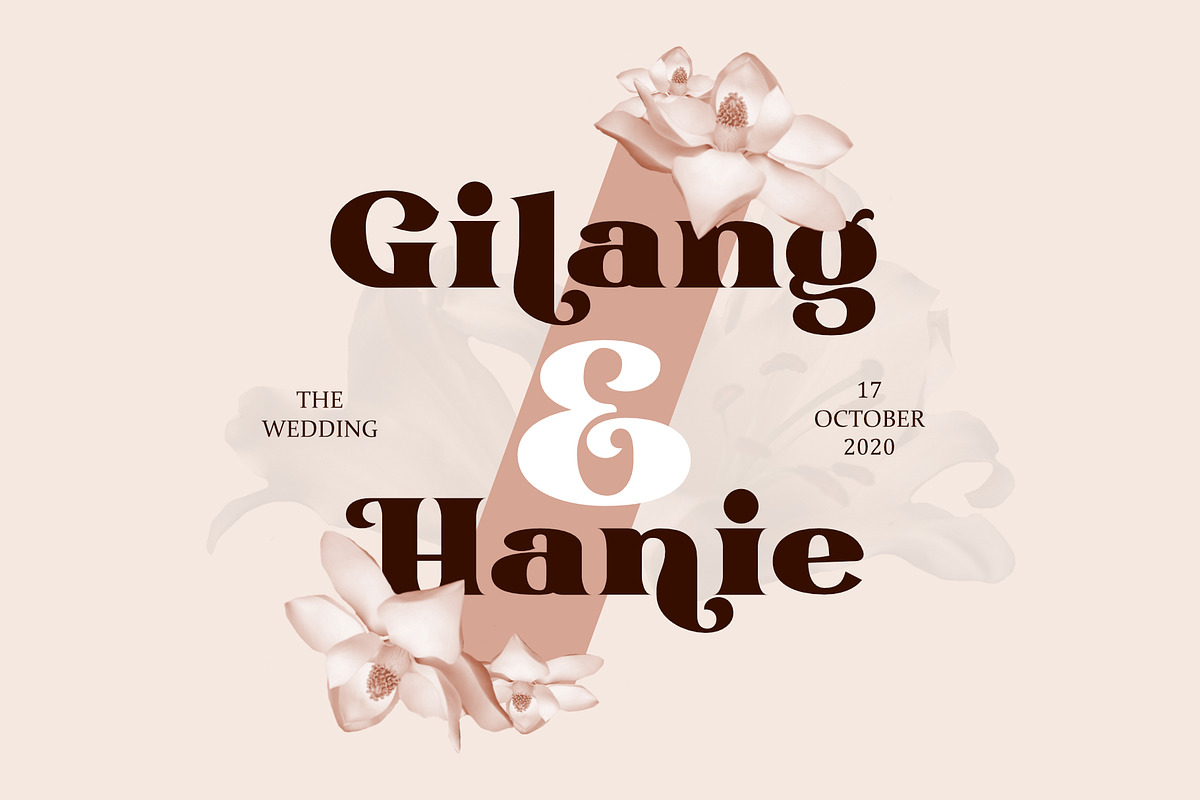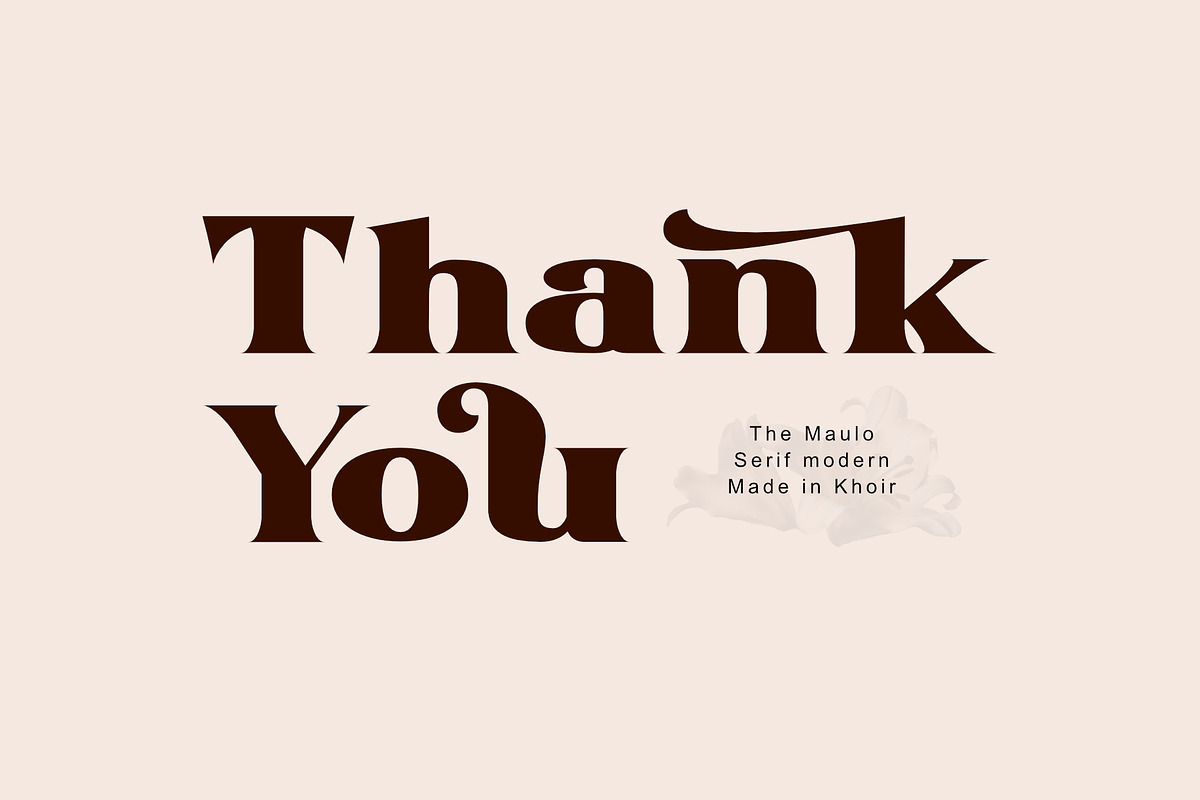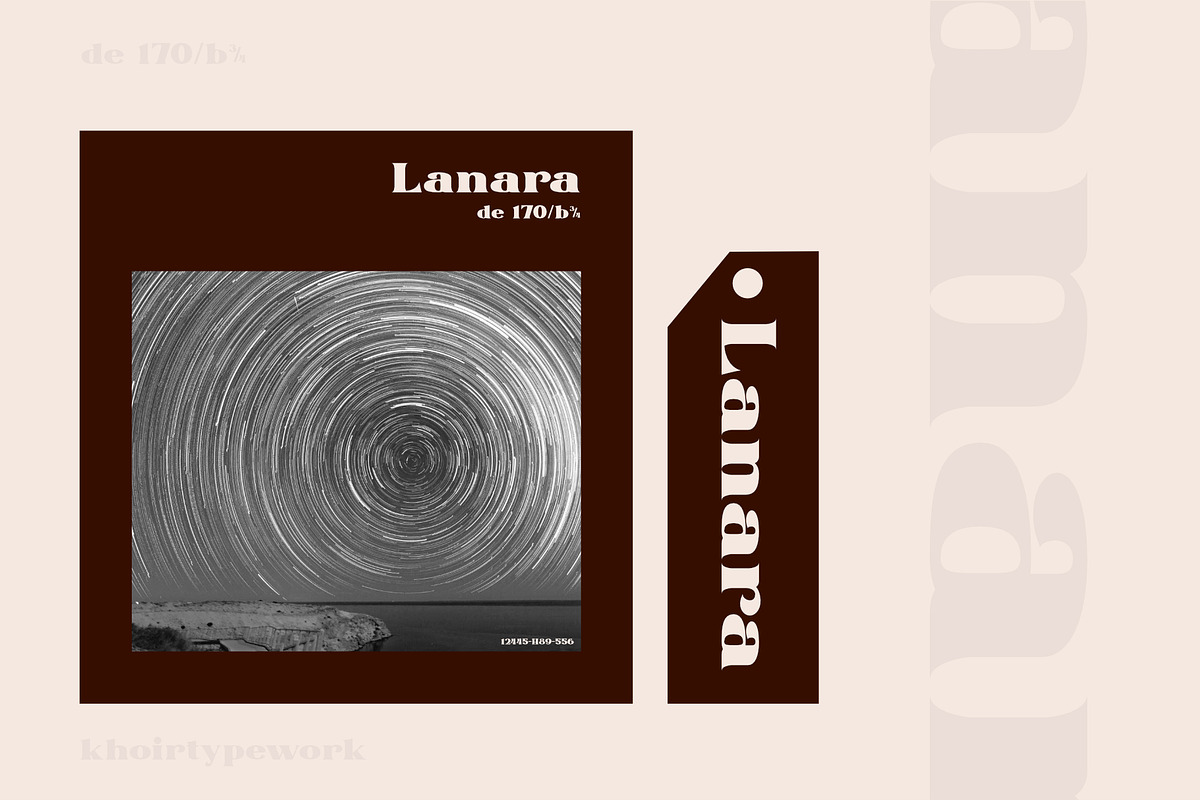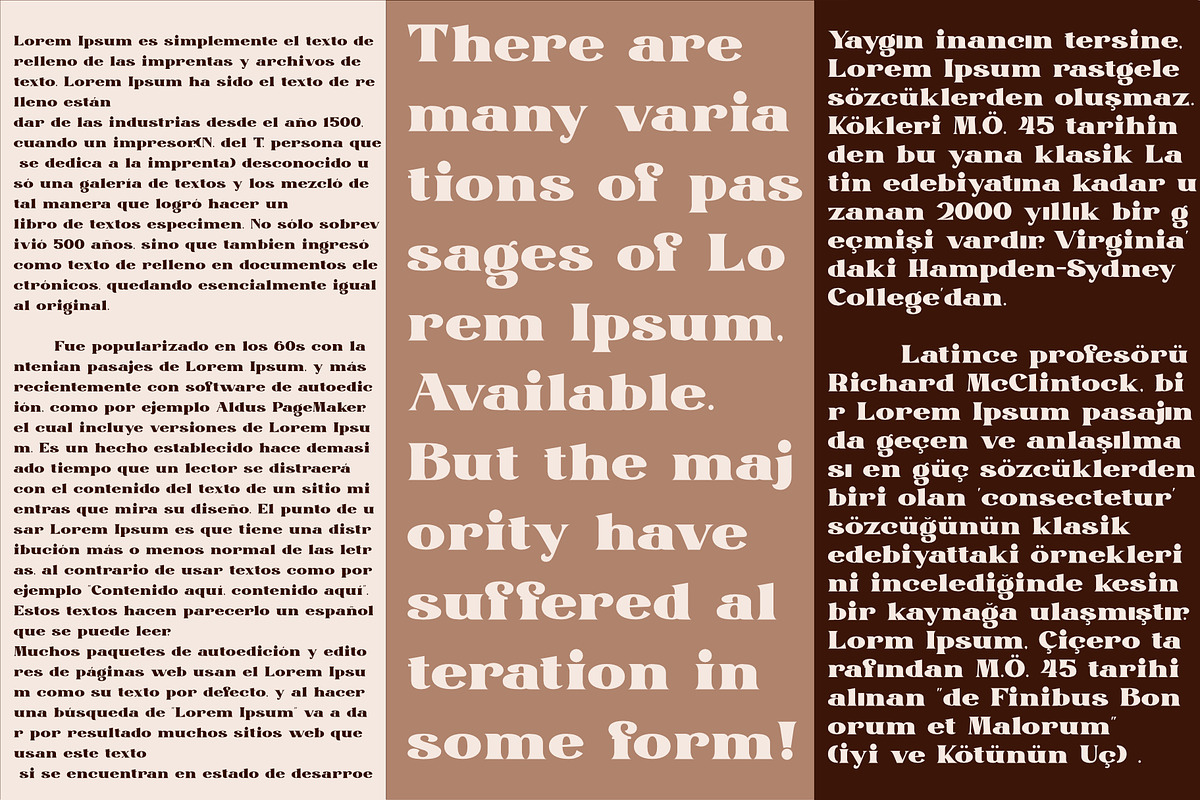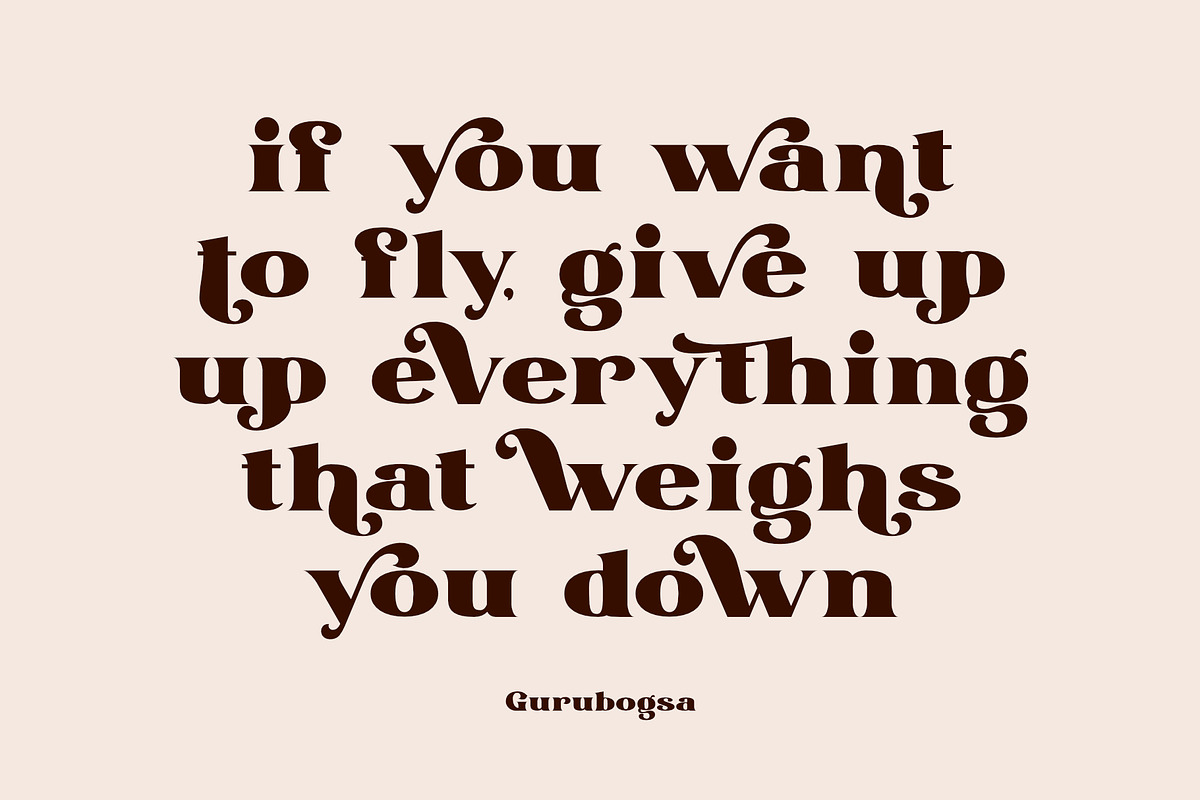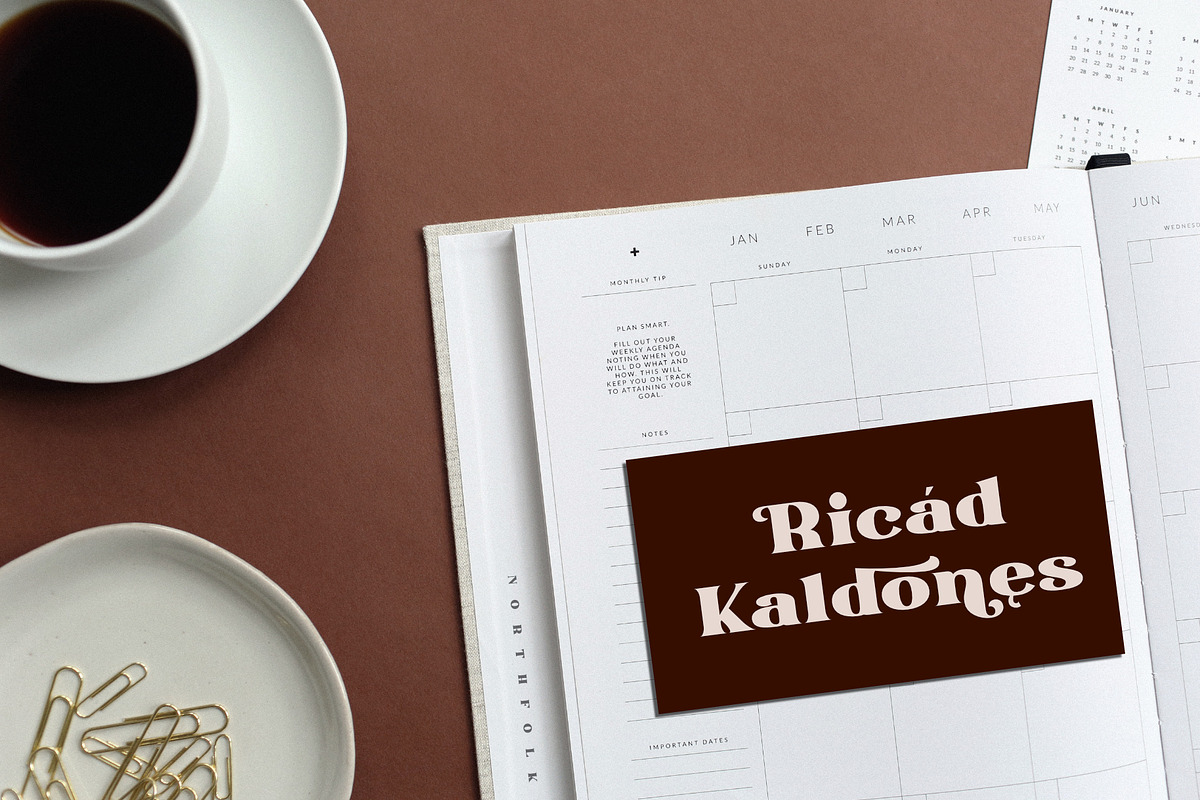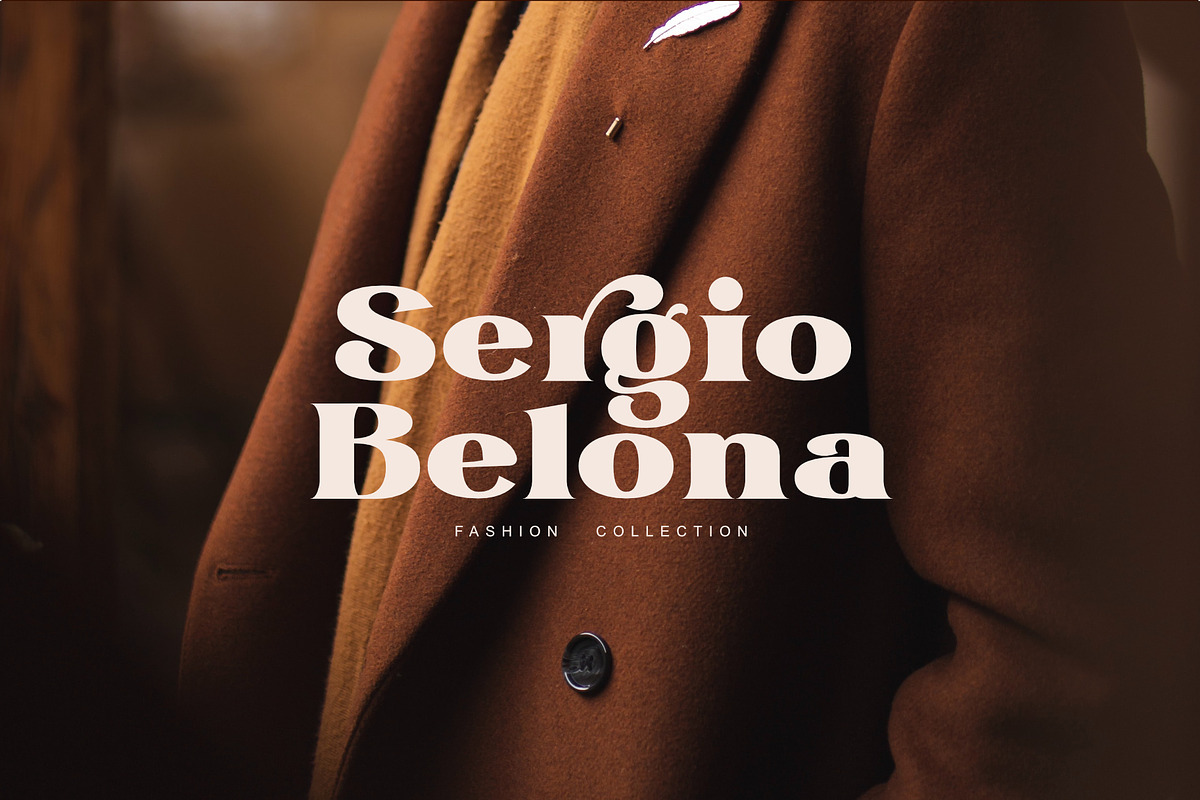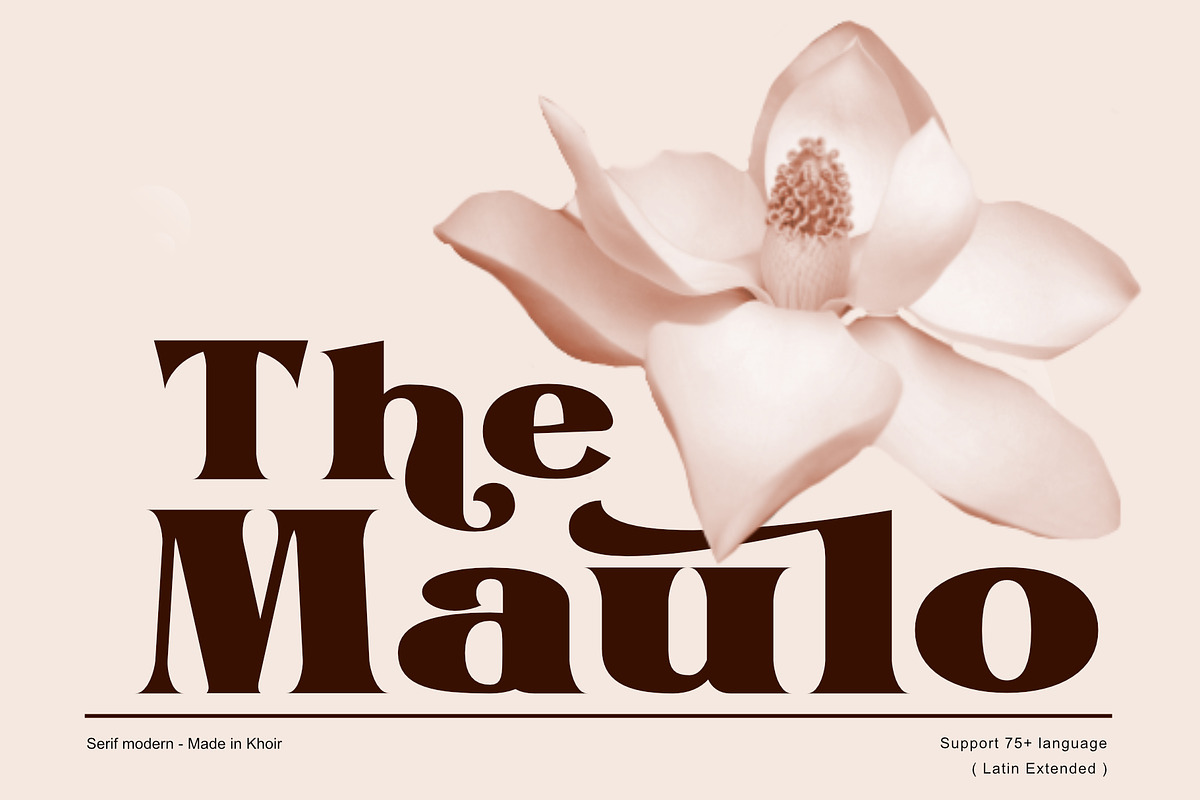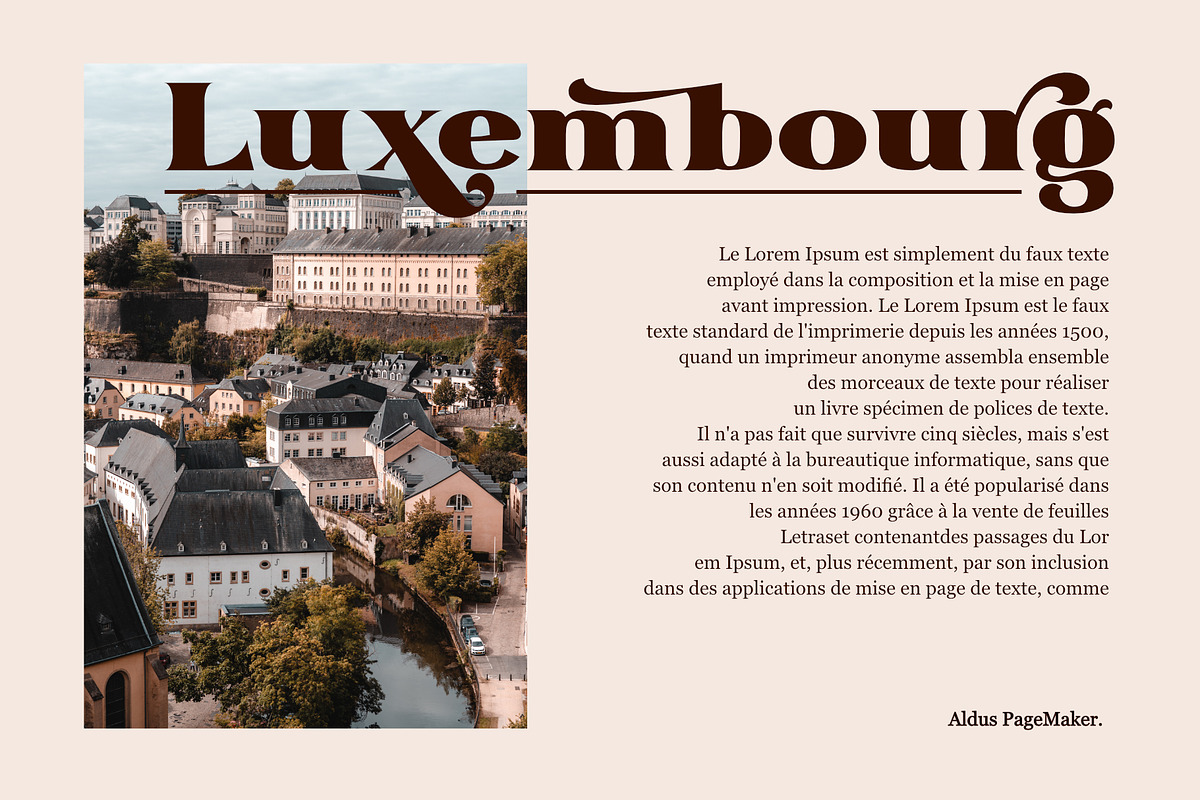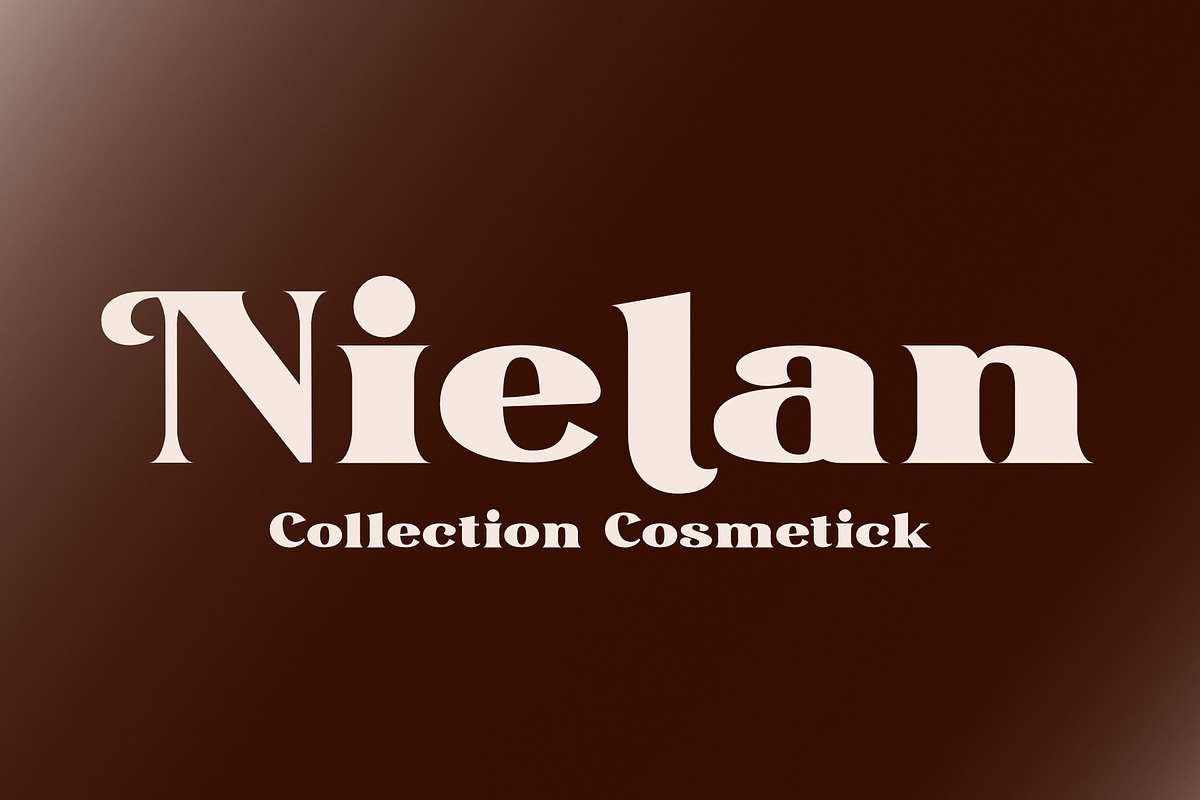
The Maulo
Maulo is a modern serif font that's vintage in the 60s style, has a bold shape, with a pretty alternative and is multilingual, making it incredibly versatile. This font has a unique shape, especially if the alternative has a thick, threaded shape that makes this font unique. This font is suitable for branding needs, posters, wedding cards, logo identification cards, novels, books, labels, texts, magazines. so what are you waiting for!